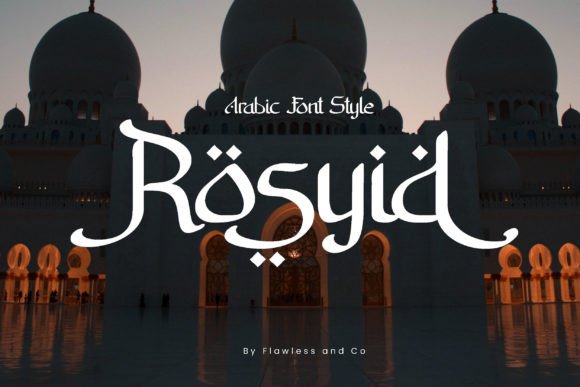
Introducing Rosyid Font, the ultimate choice for your creative endeavors and Ramadan-related projects. Crafted with utmost care and precision by the renowned Flawless And Co, this stunning display font is guaranteed to captivate your audience and elevate your designs to new heights.
With its elegant calligraphic strokes and bold lines, Rosyid Font brings a modern touch to traditional Arabic typography. Its unique style sets it apart from ordinary fonts, making it the perfect choice for designing eye-catching Ramadan graphics. Whether you're creating greeting cards, banners, or social media posts, Rosyid Font will add a touch of sophistication and elegance to your designs.
What sets Rosyid Font apart from the rest is its impeccable attention to detail. Every curve, every line is meticulously crafted to ensure a flawless and visually striking result. The intricate design of this font will mesmerize your audience, leaving a lasting impression on their minds.
But Rosyid Font isn't just aesthetically pleasing, it also offers unparalleled functionality. Its versatility allows it to adapt to various design projects effortlessly. From posters to websites, Rosyid Font seamlessly blends into any context, enhancing the overall visual appeal and readability of your content.
Imagine the impact of using Rosyid Font on your next poster. With its captivating charm and bold presence, your message will come to life in a way that is impossible to ignore. Your audience will be drawn to the elegance and sophistication that Rosyid Font exudes, making it a powerful tool for effective communication.
In conclusion, Rosyid Font is the best font for poster text and a must-have for anyone looking to make an impact with their designs. Its captivating style, attention to detail, and versatility make it the perfect choice for Ramadan-related projects and beyond. Download Rosyid Font today and unlock the true potential of your creativity.